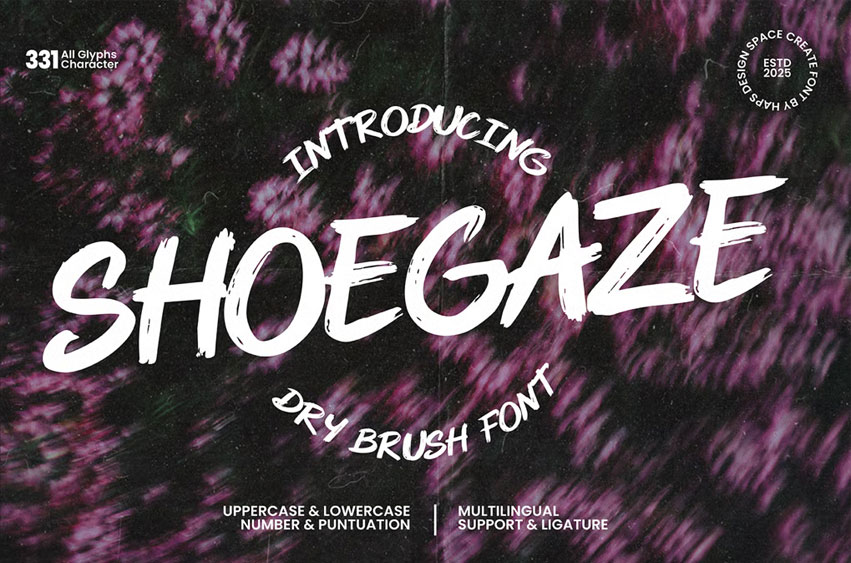
Shoegaze Font
Shoegaze Font is a bold, dry brush font inspired by raw, expressive strokes and indie music aesthetics. Crafted to bring energy and movement to your designs, Shoegaze works perfectly for music covers, posters, social media graphics, and edgy branding projects.
With 331 glyphs, this font supports uppercase, lowercase, numbers, punctuation, ligatures, and multilingual characters, making it versatile for both display and typographic art.